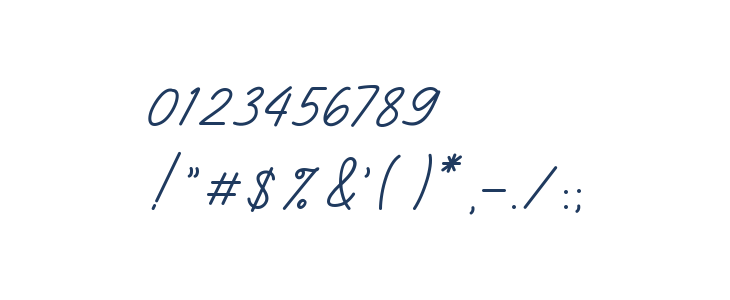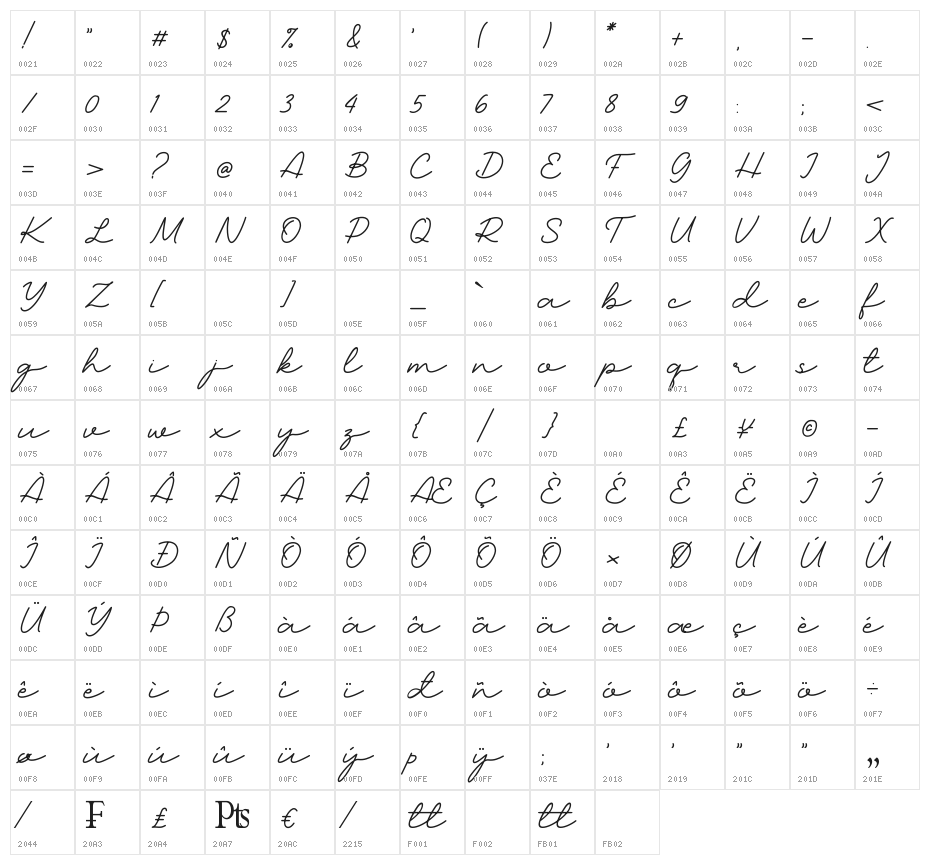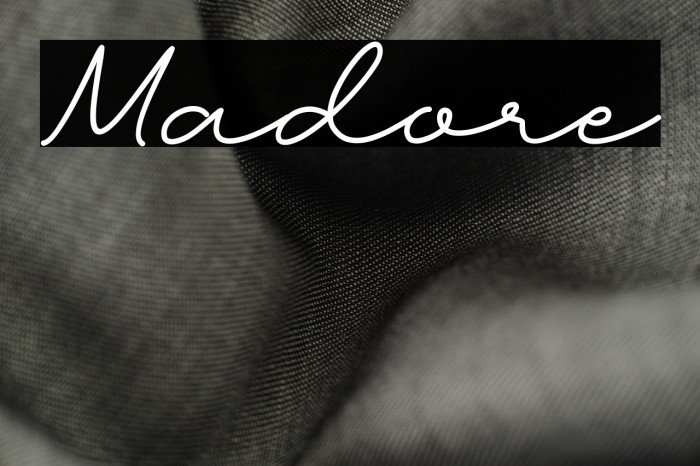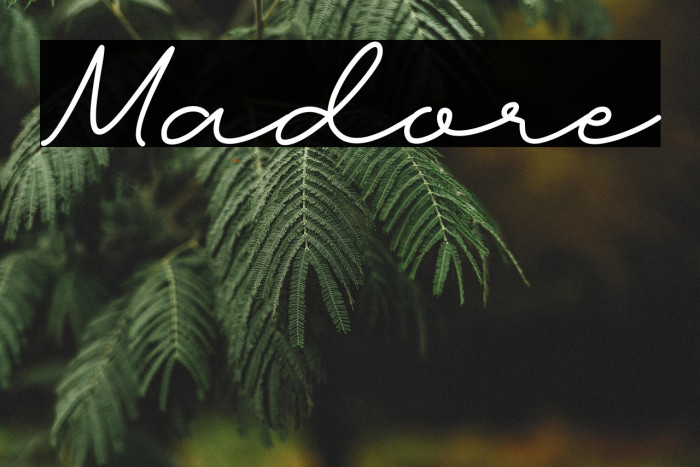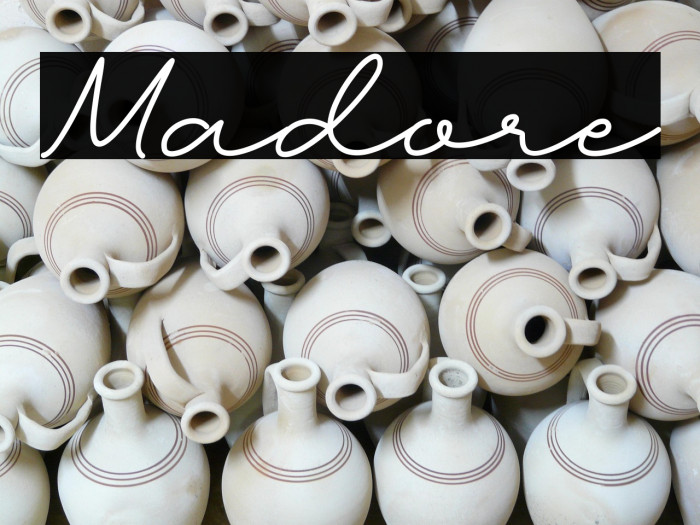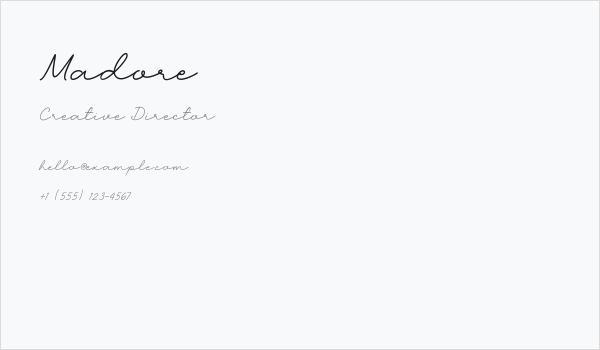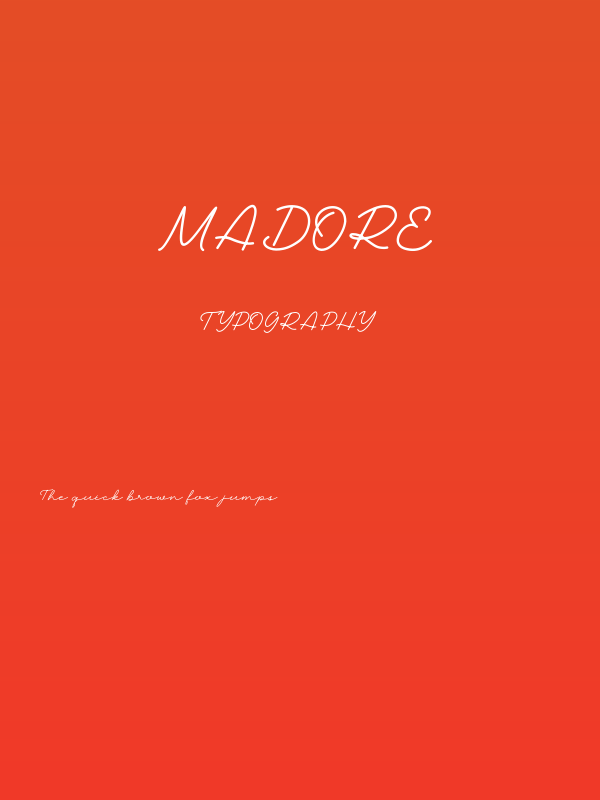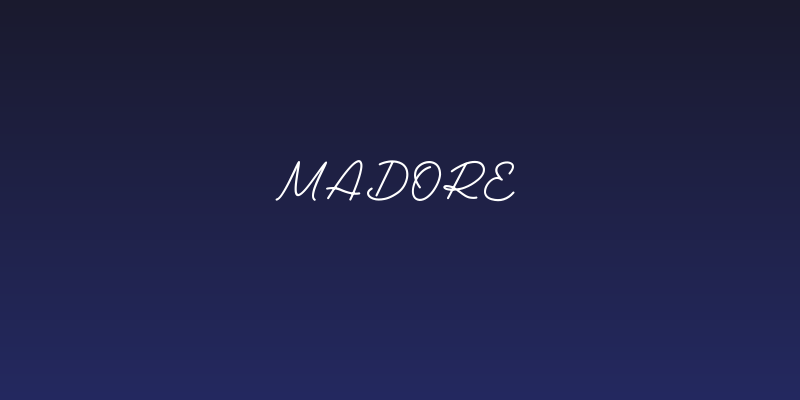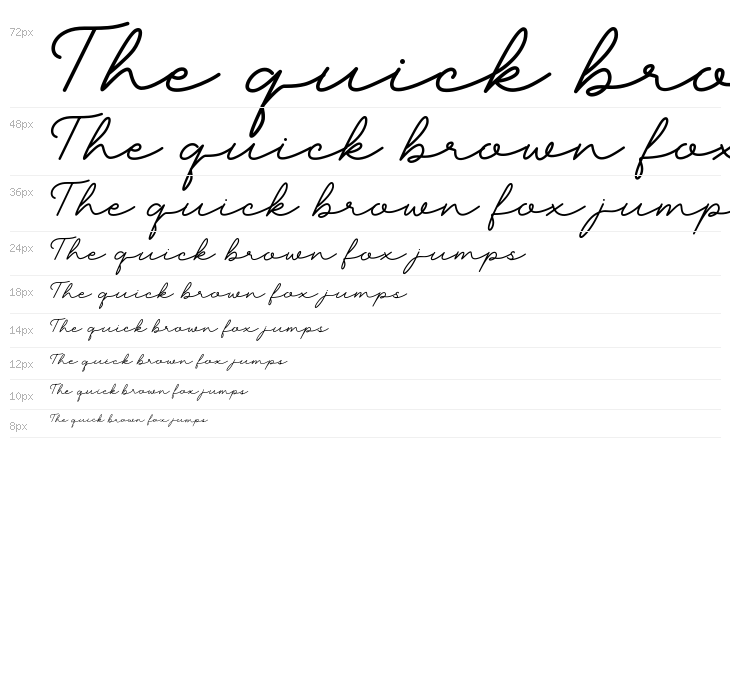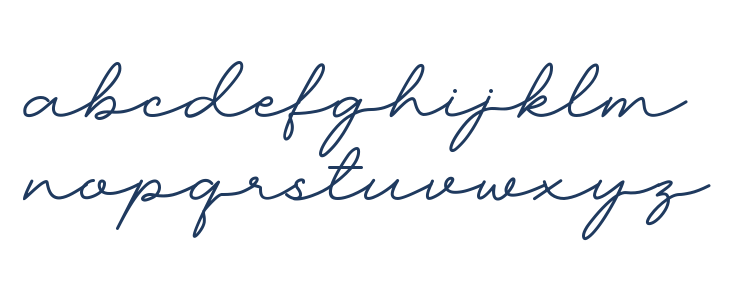
Madore Font
Madore Description
This font features an elegant and flowing script style, characterized by its smooth, continuous strokes that mimic the fluidity of handwriting. The uppercase letters are slightly more formal, with a consistent slant and rounded edges, while the lowercase letters maintain a cohesive flow, enhancing readability. The numerals are clear and distinct, maintaining the overall cursive aesthetic. Special characters are seamlessly integrated, adding versatility to the font. This style is perfect for conveying a sense of sophistication and personal touch.
| Proposed Projects | Ideal for wedding invitations, greeting cards, personal branding, and elegant logos. |